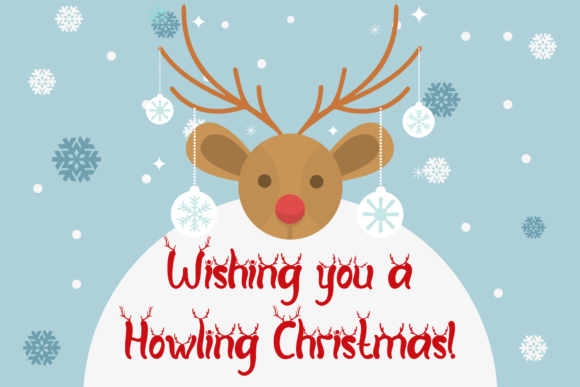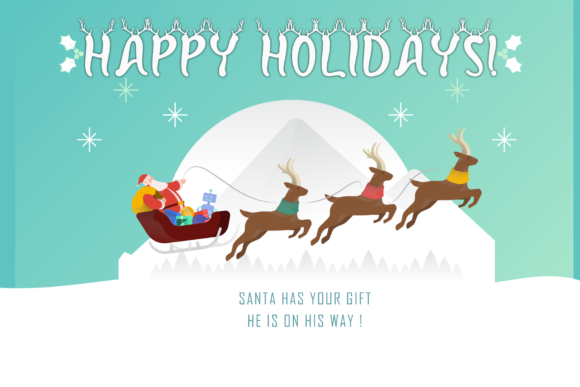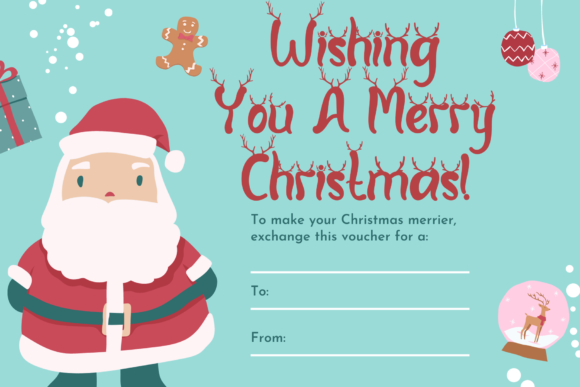
Introduction to Merry Deer Font
Merry Deer is a fun, chic and trendy decorative font.
This font is PUA encoded which means you can access all of the glyphs and swashes with ease Fall in love with its incredibly sweet style and use it to create spectacular designs.
Key Features of Merry Deer Font
Why Choose Merry Deer Font?
Merry Deer Font offers exceptional quality and versatility, making it a valuable addition to your design toolkit. Whether you’re creating for personal projects or commercial use, Merry Deer Font delivers professional results.